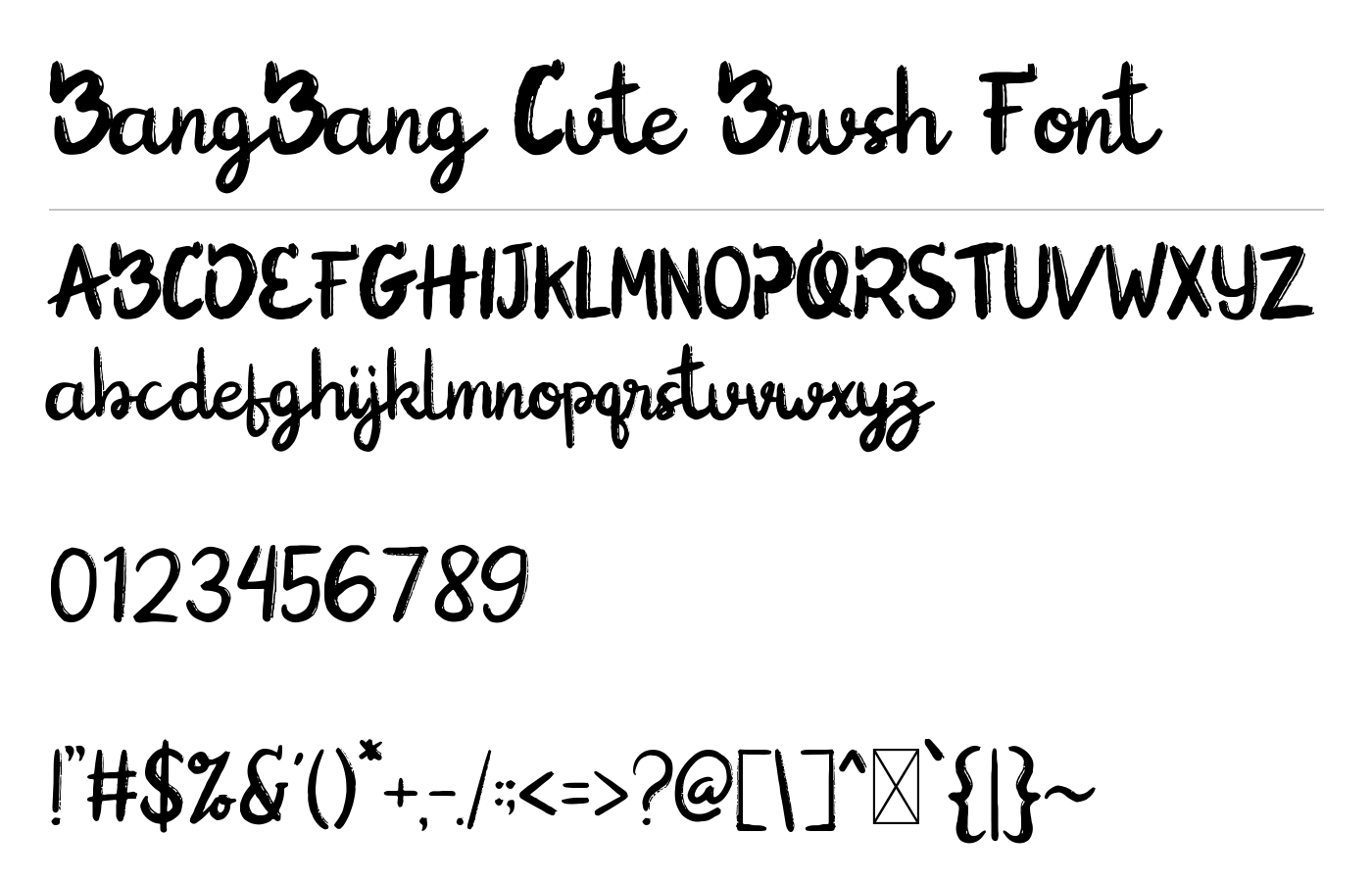
BangBang Font is a lively, casual brush script that combines bold, textured strokes with a playful, hand-drawn charm. Its uneven edges and organic flow give it a fun, approachable feel, making it perfect for creative branding, informal invitations, and eye-catching headlines where warmth and personality are key. This font works especially well for designs that want to express energy and friendliness without sacrificing readability.
BangBang Font
About BangBang Font
| Font family | BangBang Font |
| Designer | Juliolailydomingo |